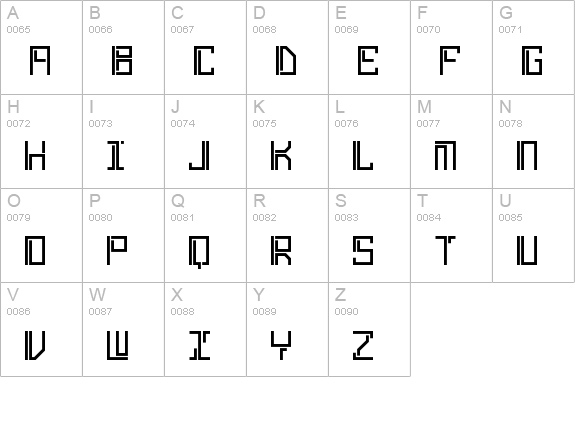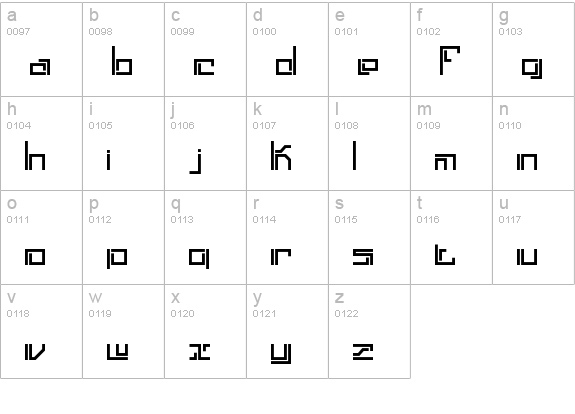
Lyneous Linear BRK Font Details
Lyneous Linear BRK font is a modern and elegant typeface that beautifully combines clean lines and a sleek design. With its sophisticated appearance, this font is perfect for various design projects, from branding to editorial designs. The crisp lines and balanced proportions of Lyneous Linear BRK make it a versatile choice for both digital and print applications. What sets this font apart is that it is available for free download at FontsMarket.com. This means that you can easily access and use Lyneous Linear BRK in your projects without any cost. Whether you're a seasoned designer or a beginner looking to elevate your designs, this font is a fantastic addition to your typography collection. Don't miss out on the opportunity to enhance your projects with the timeless appeal of Lyneous Linear BRK font. Download it for free today at FontsMarket.com!